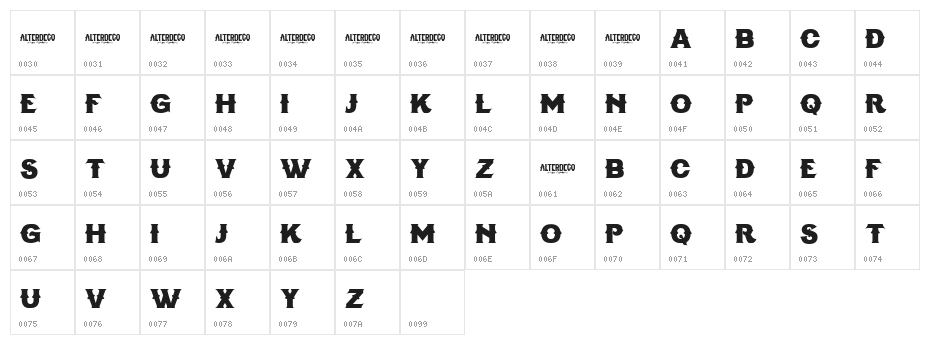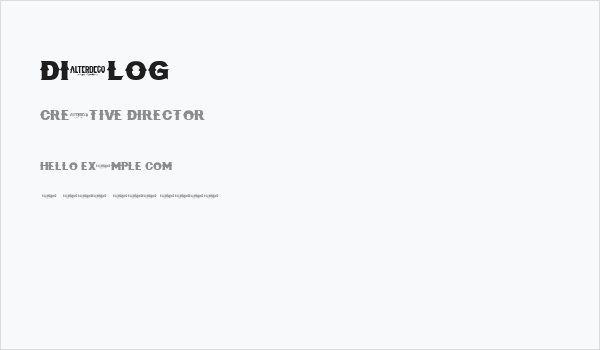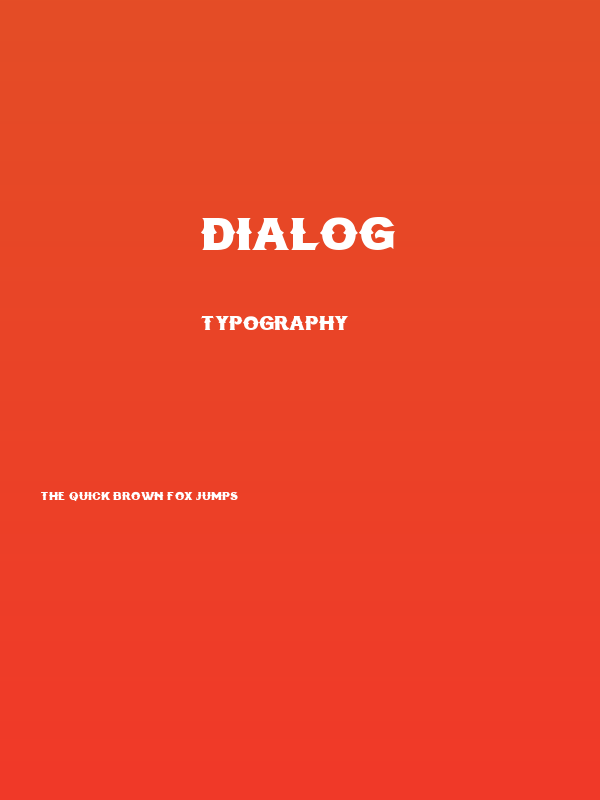
Dialog Font
Dialog Description
This font features a bold and striking design with a distinct geometric influence. The characters are crafted with sharp angles and strong lines, creating a sense of power and authority. The uppercase letters are particularly prominent, with a unique flair that makes them stand out. The font's style is reminiscent of Art Deco, with its emphasis on symmetry and bold shapes. It is well-suited for projects that require a vintage or retro aesthetic, while still maintaining a modern edge. The font's strong presence makes it ideal for headlines, logos, and branding materials.
| Proposed Projects | Ideal for branding, posters, and any design project that requires a vintage yet modern look. |